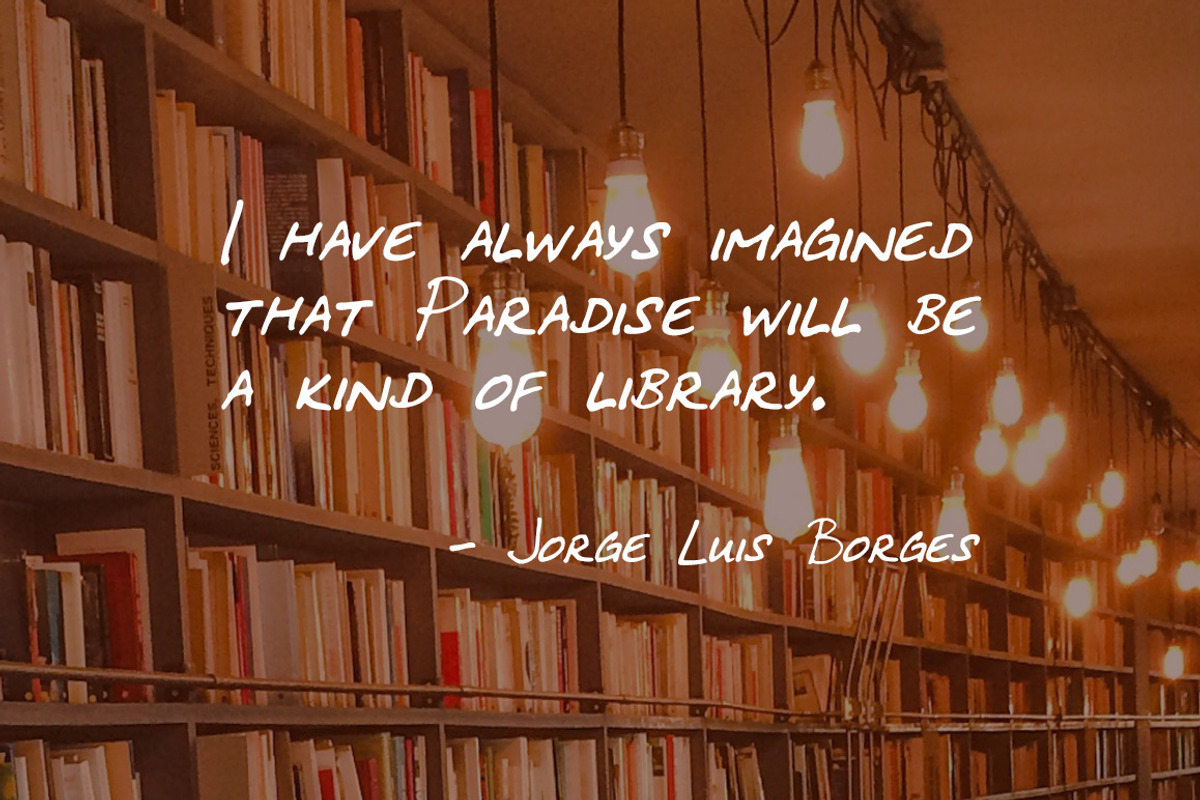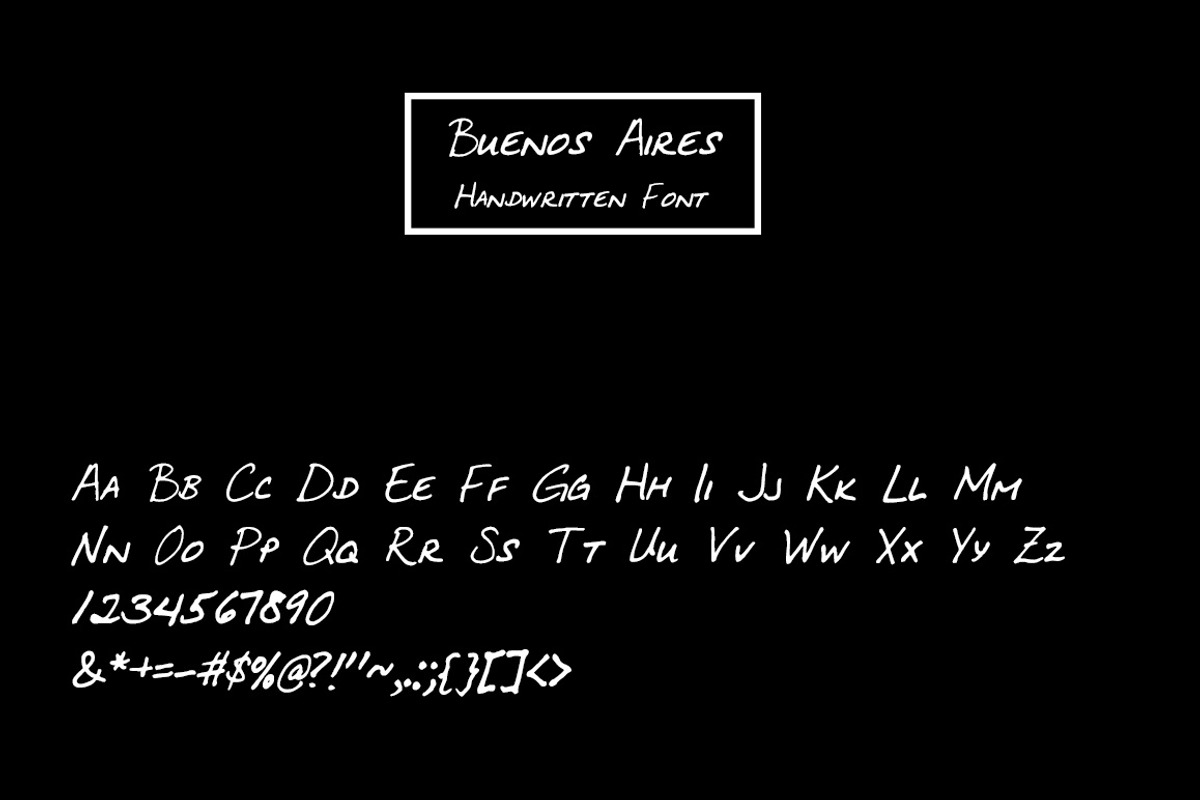
Buenos Aires - Handwritten Font
Buenos Aires - Handwritten Font by amyxbao is a font selected for branding, posters, packaging, typography.
Why Buenos Aires - Handwritten Font is worth a look
Buenos Aires - Handwritten Font by amyxbao fits naturally into Branding, posters, packaging, typography.